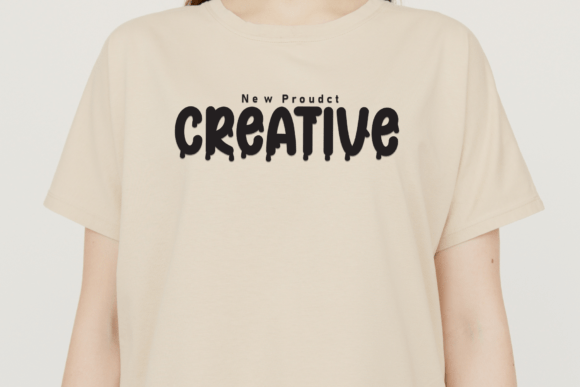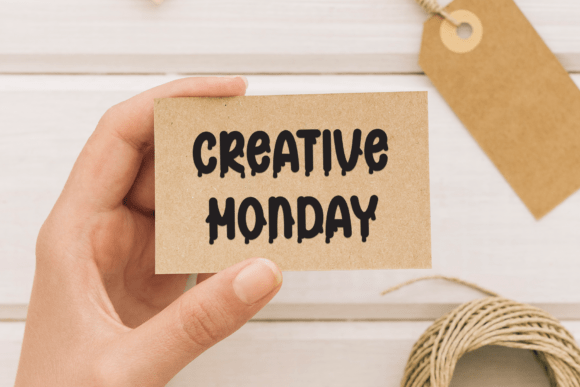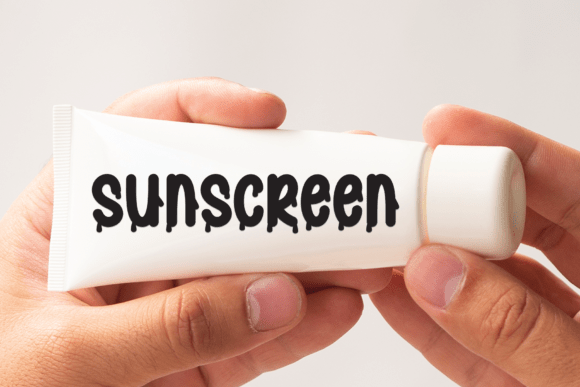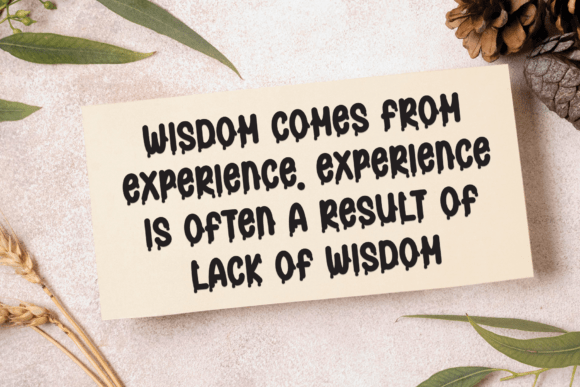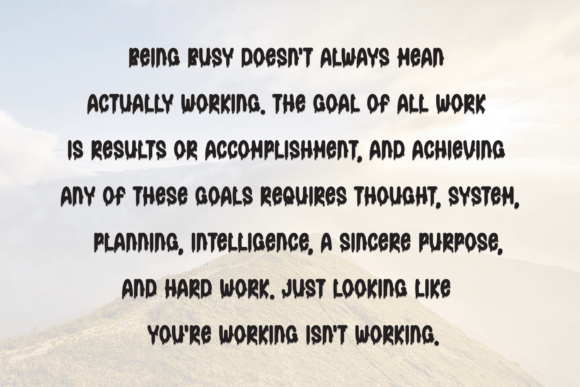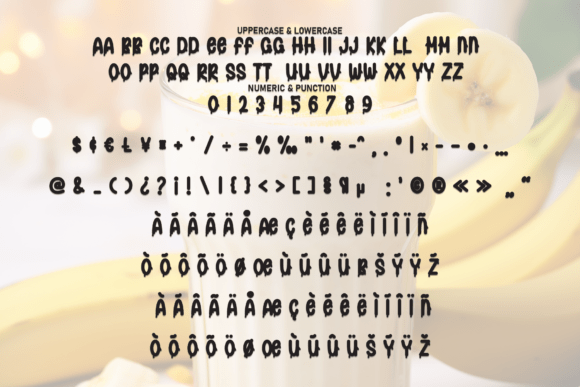
Introducing Banana Milk Font: The Perfect Blend of Modern Simplicity and Playful Charm
In the world of typography, fonts play a crucial role in conveying the tone and personality of a brand or design. For designers and crafters looking for a font that embodies a fresh and friendly vibe, Banana Milk Font is an excellent choice. This casual display font seamlessly blends modern simplicity with a playful, approachable charm, making it ideal for a wide range of design projects.
What Makes Banana Milk Font Stand Out?
Banana Milk Font features clean shapes, soft edges, and well-balanced letterforms that capture the essence of relaxed design while maintaining clarity and style. The font’s design is characterized by its:
- Clean Shapes: The font’s clean shapes give it a modern and sleek look, making it perfect for designs that require a touch of sophistication.
- Soft Edges: The soft edges add a playful and approachable touch to the font, making it ideal for designs that require a friendly and approachable vibe.
- Well-Balanced Letterforms: The well-balanced letterforms ensure that the font is easy to read and understand, making it perfect for designs that require clear communication.
Banana Milk Font is a versatile font that can be used for a wide range of design projects, including:
- Posters: The font’s bold and playful design makes it perfect for posters that require a eye-catching appeal.
- Branding: The font’s modern and sleek design makes it ideal for branding projects that require a touch of sophistication.
- Packaging: The font’s clean and playful design makes it perfect for packaging projects that require a fresh and friendly touch.
- Social Media Graphics: The font’s versatile design makes it ideal for social media graphics that require a clear and engaging message.
Why Choose Banana Milk Font?
There are several reasons why designers and crafters should choose Banana Milk Font for their design projects:
- Readability: The font’s well-balanced letterforms and clean design ensure that it is easy to read and understand.
- Personality: The font’s playful and approachable design gives it a unique personality that can help brands and designs stand out.
- Versatility: The font’s versatile design makes it perfect for a wide range of design projects.
- Eye-Catching Appeal: The font’s bold and playful design makes it perfect for designs that require an eye-catching appeal.
Tips for Using Banana Milk Font
Here are some tips for using Banana Milk Font in design projects:
- Use it as a Display Font: Banana Milk Font is perfect for use as a display font for headings and titles.
- Pair it with Other Fonts: The font can be paired with other fonts to create a unique and engaging design.
- Experiment with Colors: The font’s playful design makes it perfect for experimenting with different colors and color combinations.
- Use it for Body Text: The font’s readability makes it suitable for use as a body text font for shorter paragraphs.
Banana Milk Font is a casual display font that blends modern simplicity with a playful, approachable vibe. Its clean shapes, soft edges, and well-balanced letterforms make it perfect for a wide range of design projects, from posters and branding to packaging and social media graphics. With its versatility, readability, and eye-catching appeal, Banana Milk Font is an excellent choice for designers and crafters looking to add a fresh and friendly touch to their designs.